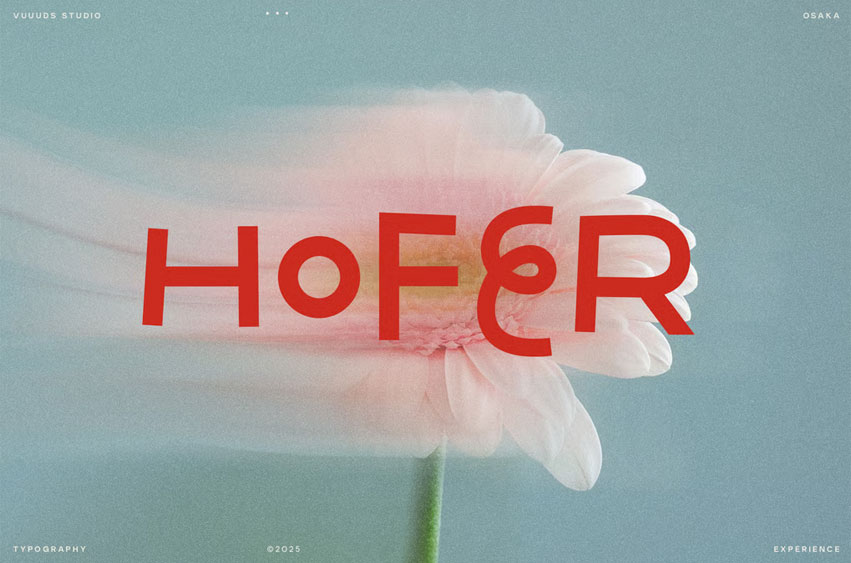
Hofer Font
Hofer Font is modern playful sans serif font, every single letters have been uniquely crafted. This font including beautiful alternate glyph.